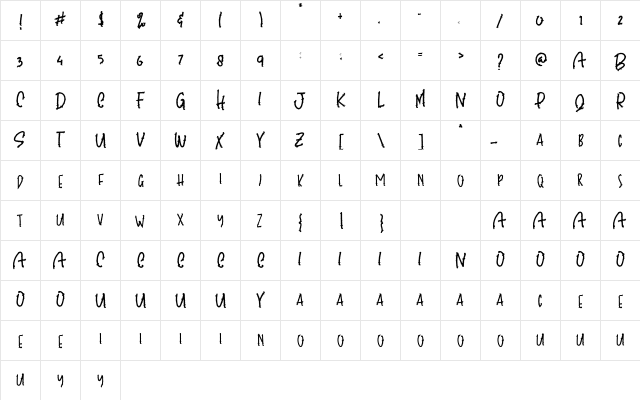
Covid Codec Regular
| Designer | iqbalfaizinm |
Design Context for Covid Codec Typeface
Covid Codec uses fixed-width spacing throughout, giving it the structured, systematic character associated with coding environments and technical documentation.
Well-suited to data-driven dashboards, coding tutorials, and any design that wants to reference the world of programming.
Pro Tip: Use Covid Codec with slightly increased line-height for extended reading — fixed-width spacing can feel dense in longer passages without extra breathing room.